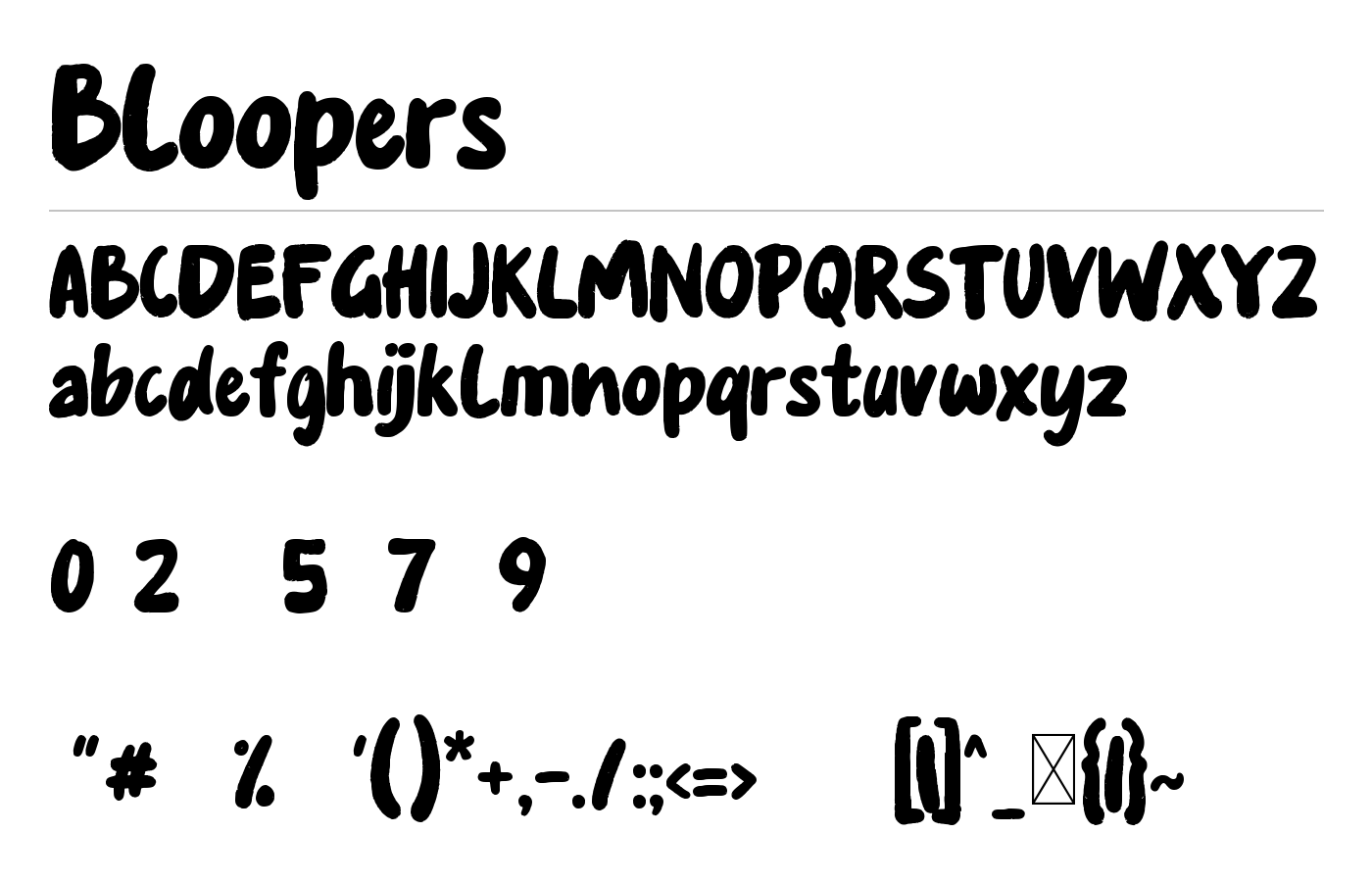
Bloopers is a bold, playful handwritten font with a casual, friendly vibe. Its rounded, irregular strokes and slightly uneven forms give it a fun, informal feel that works well for lighthearted branding, kids’ content, or any design needing a quirky, approachable touch. This font shines in headlines, posters, and creative projects where personality and charm are key.
Bloopers Font
About Bloopers Font
| Font family | Bloopers Font |
| Designer | Anang F & Malik Wsn | Gassstype© Studio 2022 |